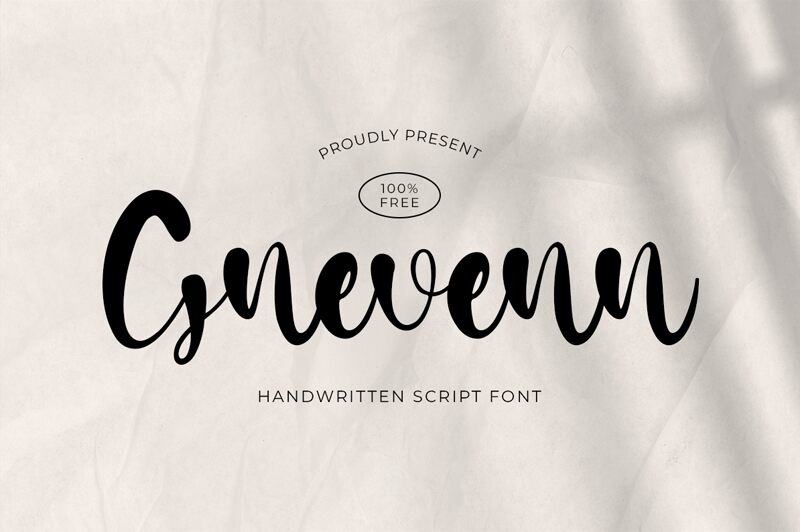
Gnevenn
Gnevenn font by Staircase Studio is a smooth brush typeface that beautifully combines elegance and informality. Its calligraphic design showcases flowing lines, and rounded forms for a bold, eye-catching appearance. This free font’s cursive letters harmonize elegantly with each other for impactful handwriting-like typography.
The graceful presence of Gnevenn makes it a great choice for artwork that includes posters, greeting cards and invitations. It’s also an ideal tool to be used in adding beautiful lettering on logos or as web/print headlines.